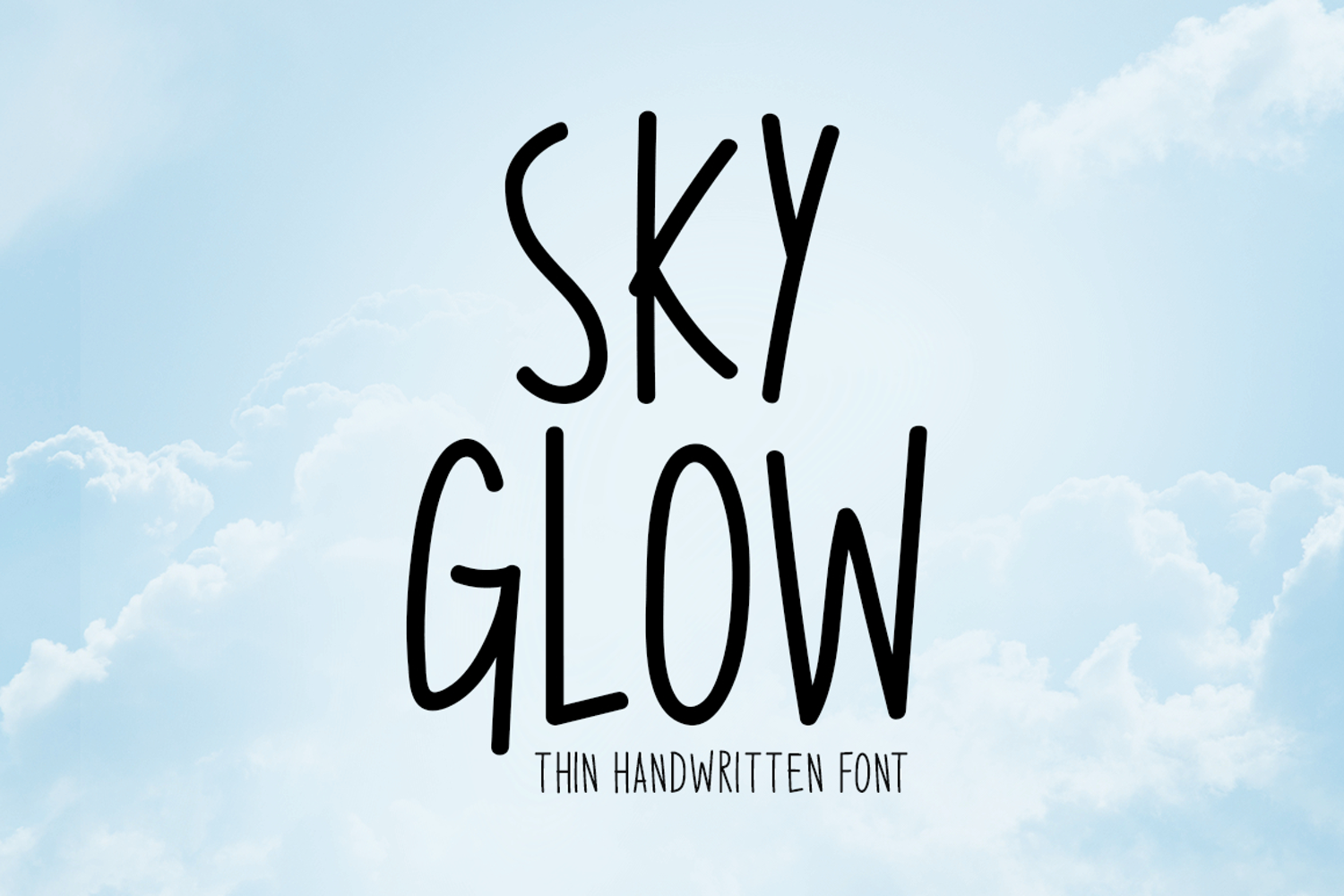
Introducing Sky Glow!
Sky Glow is a thin handwritten font with a soft, natural flow and elegant simplicity. Designed with light strokes and smooth curves, it creates a calm and modern visual feel. Perfect for branding, quotes, invitations, and social media, this font delivers a clean, stylish, and effortlessly creative appearance.